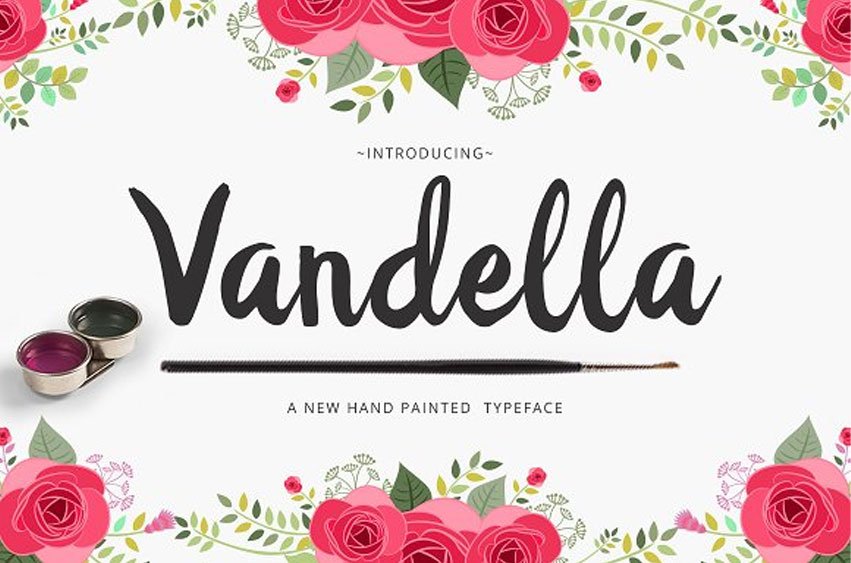
Vandella Font is a fun hand-inked font created by Unicode.
It fits in headlines, logos, posters, flyers, invitations, name cards, branding materials, print media, editorial layouts, and many more.